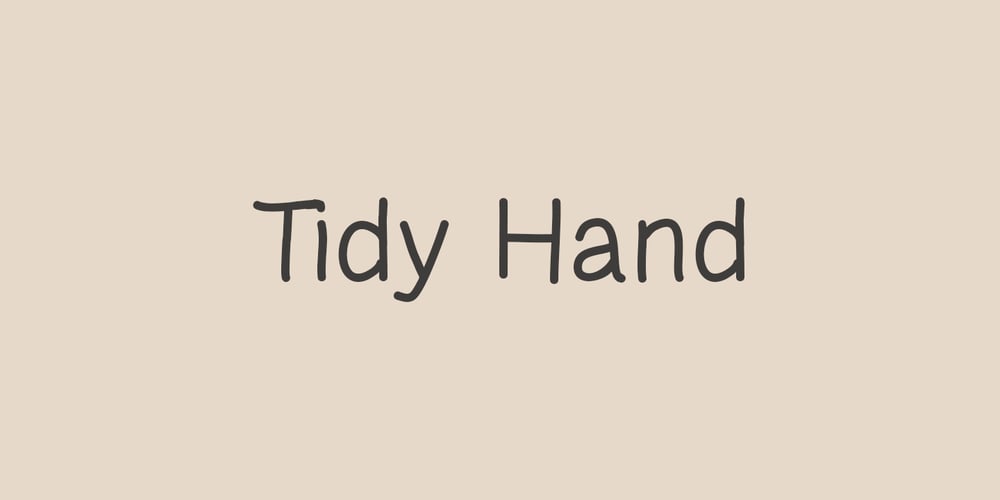
Tidy Hand
Tidy Hand font
Tidy Hand Font Family was designed by Sean Johnson and published by Sean Johnson. Tidy Hand contains 3 styles and family package options. Tidy Hand is a clean and simple hand-written font, reminiscent of classic Swiss type. Perfectly suited to annotating sketches, UX / UI wireframes and architects drawings, where a slightly more formal, but still hand-drawn aesthetic is needed. Available in light, regular and bold; with Greek, Cyrillic and full extended Latin character sets.